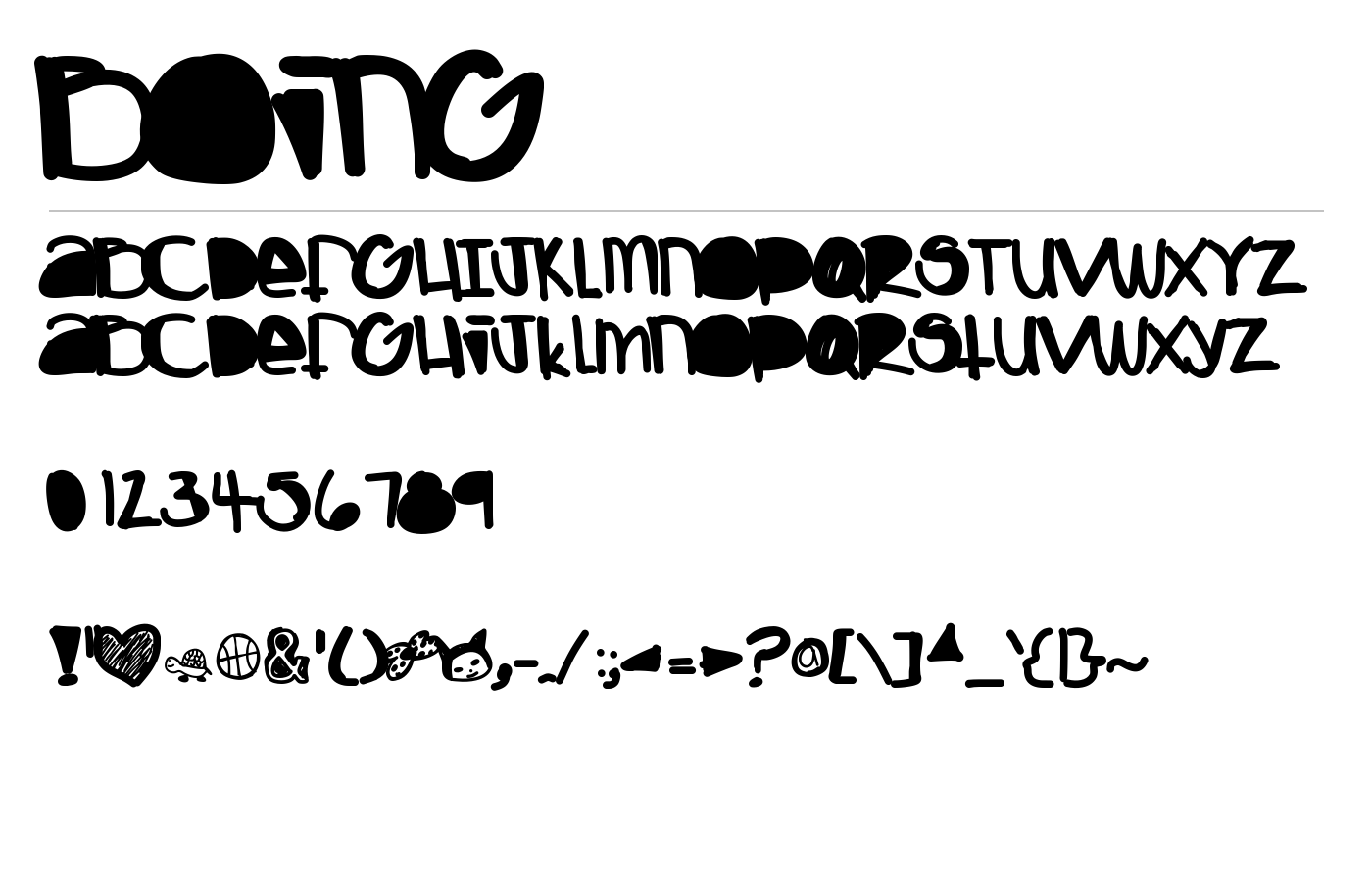
Boing Font is a playful, bold handwritten typeface characterized by its thick, rounded strokes and uneven letterforms that create a lively, informal vibe. Its quirky shapes and high contrast between thick and thin elements make it ideal for fun, creative projects such as children’s books, posters, and casual branding where a friendly and energetic mood is needed. This font works best in display uses where personality and uniqueness are key.
Boing Font
About Boing Font